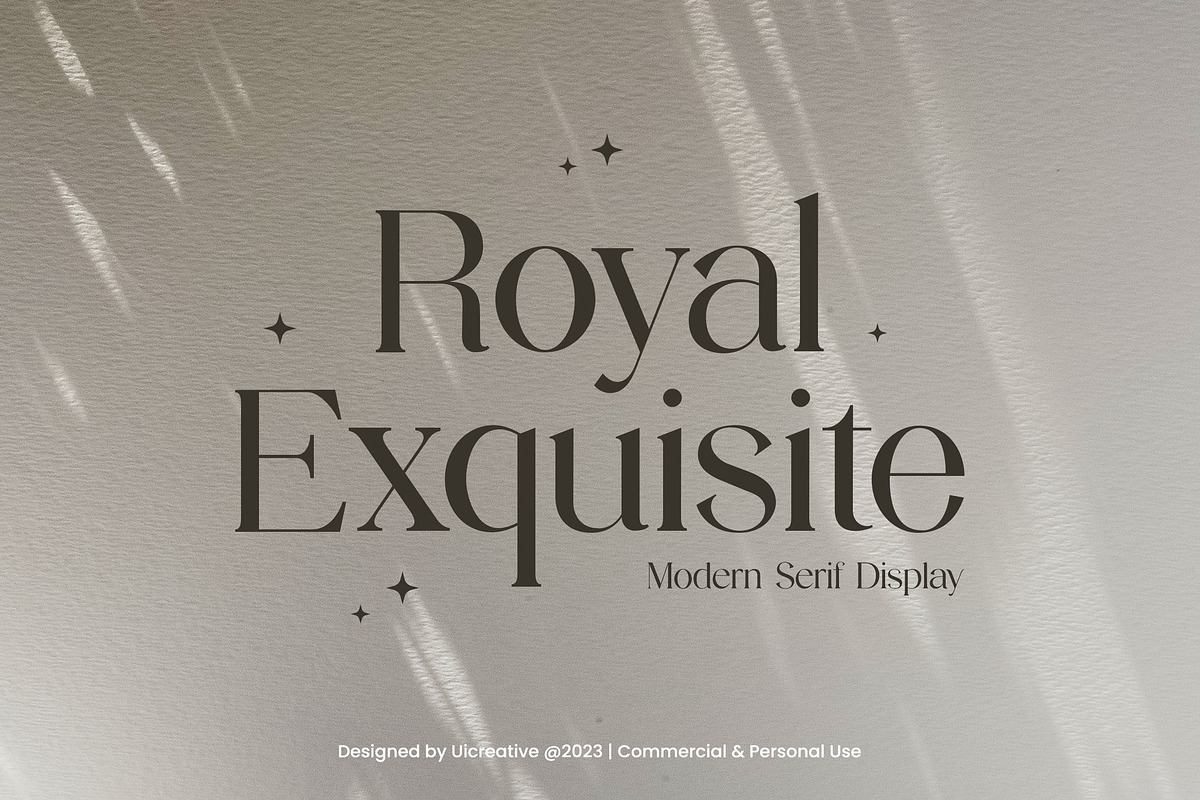
Royal Exquisite Modern Serif Font Free Download
Royal Exquisite Modern Serif Font Free Download is a refined and sophisticated typeface designed to add elegance and luxury to your designs. With its timeless serifs and contemporary style, this font is perfect for high-end branding, editorial layouts, wedding invitations, and more. Its combination of classic serif elements with modern flair gives it a polished, upscale appearance. Whether you're working on a prestigious brand, a chic event, or creating premium marketing materials, Royal Exquisite Modern Serif Font Free Download allows you to experiment with its elegant design in personal projects before purchasing a commercial license. Elevate your work with this stylish and sophisticated serif font that speaks of luxury and refinement.